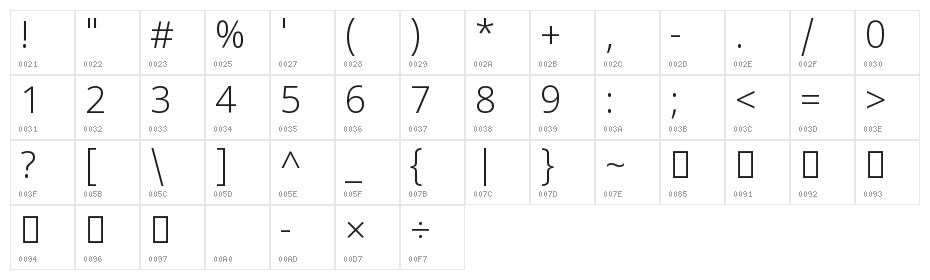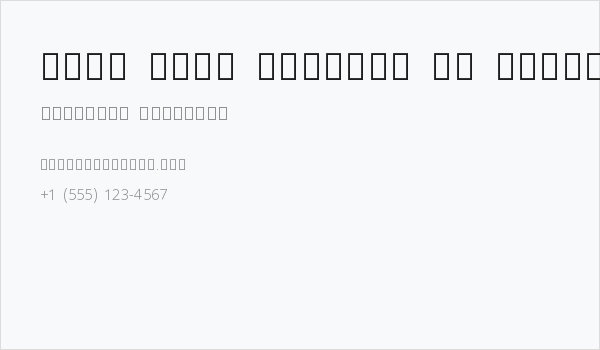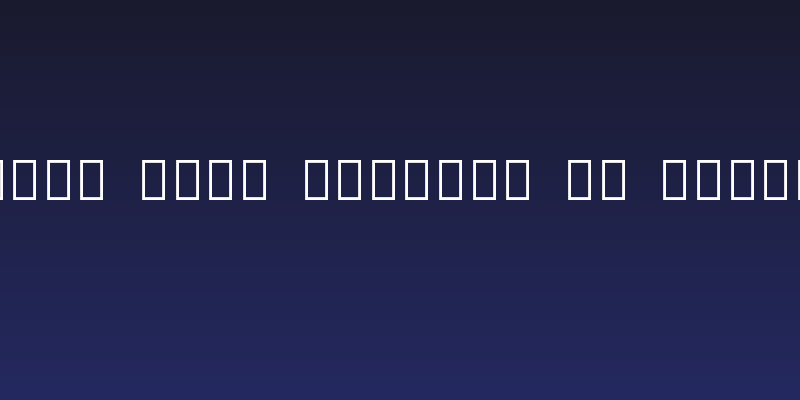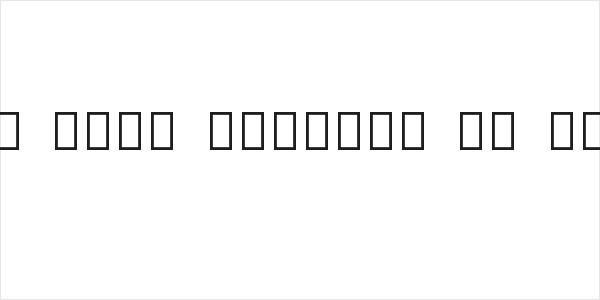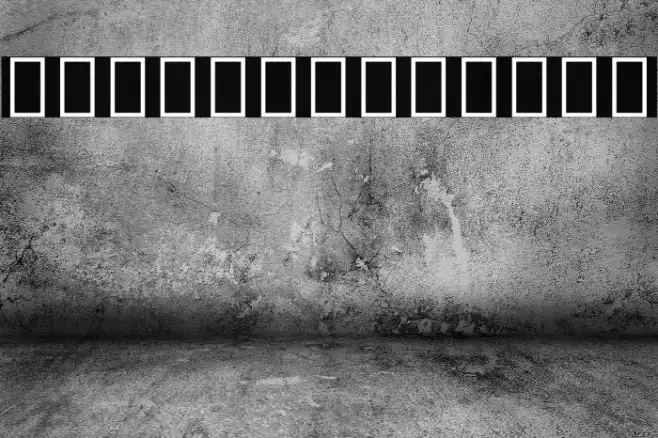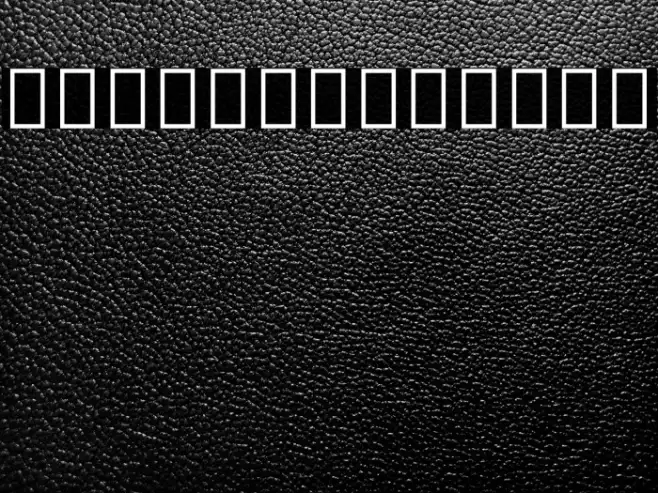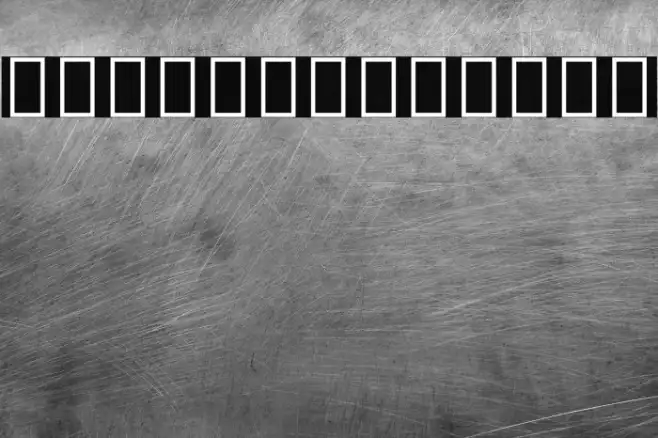
Noto Sans Sinhala UI Light Font
Noto Sans Sinhala UI Light Description
This font is a clean and modern sans-serif typeface designed for clarity and readability. It features a light weight, making it ideal for user interfaces and digital displays. The characters are well-proportioned with a consistent stroke width, ensuring legibility across various sizes. The numerals and special characters are distinct and easy to differentiate, which enhances its usability in technical and professional settings. The overall design is minimalistic, focusing on functionality while maintaining an elegant appearance.
| Use Case | User interfaces, digital displays |
| Proposed Projects | Ideal for user interfaces, digital displays, websites, and mobile applications. |